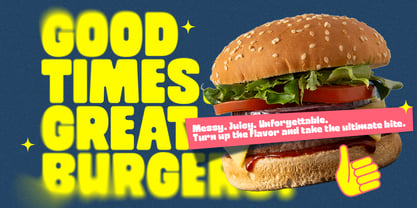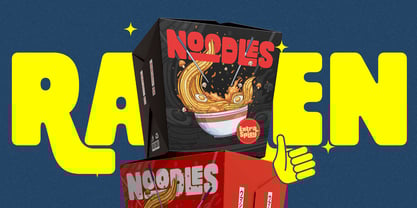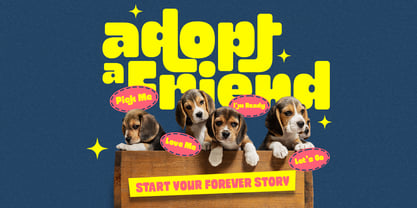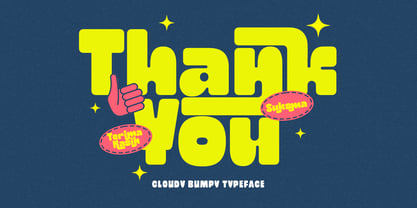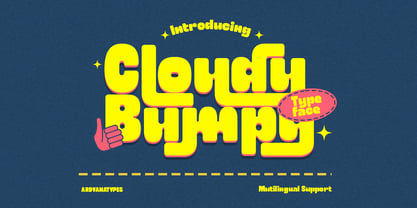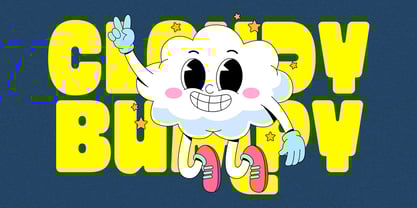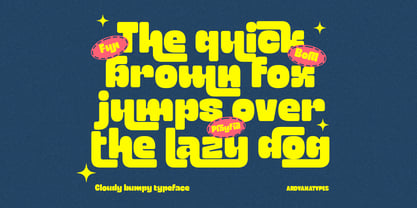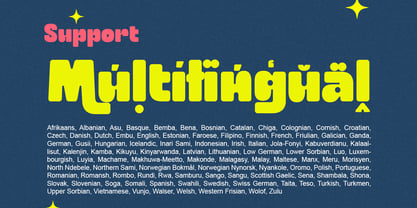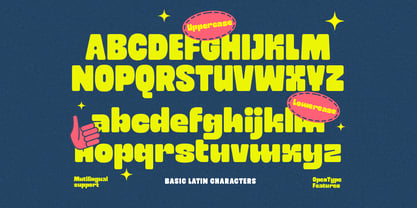
Cloudy Bumpy
by Ardyanatypes
The Cloudy Bumpy Font Family was designed by Ardyana Putra and published by Ardyanatypes. Cloudy Bumpy contains 1 styles.
Cloudy Bumpy is a super bold display typeface with soft curves and vibrant personality. Designed with thick strokes and playful “bumpy” contours, it delivers a cheerful, energetic, and highly expressive visual impact. Each character features rounded terminals and solid proportions, creating a strong yet friendly appearance. It works exceptionally well for headlines, food and beverage packaging, kids branding, promotional posters, social media graphics, and merchandise designs that demand immediate attention. Equipped with extensive OpenType features, Cloudy Bumpy includes stylistic alternates, ligatures, and multiple character variations that allow designers to create dynamic and less repetitive typography compositions. This flexibility transforms simple words into visually engaging statements. Cloudy Bumpy is more than just a cute font — it’s a bold personality typeface built to stand out and leave a memorable impression.
Cloudy Bumpy